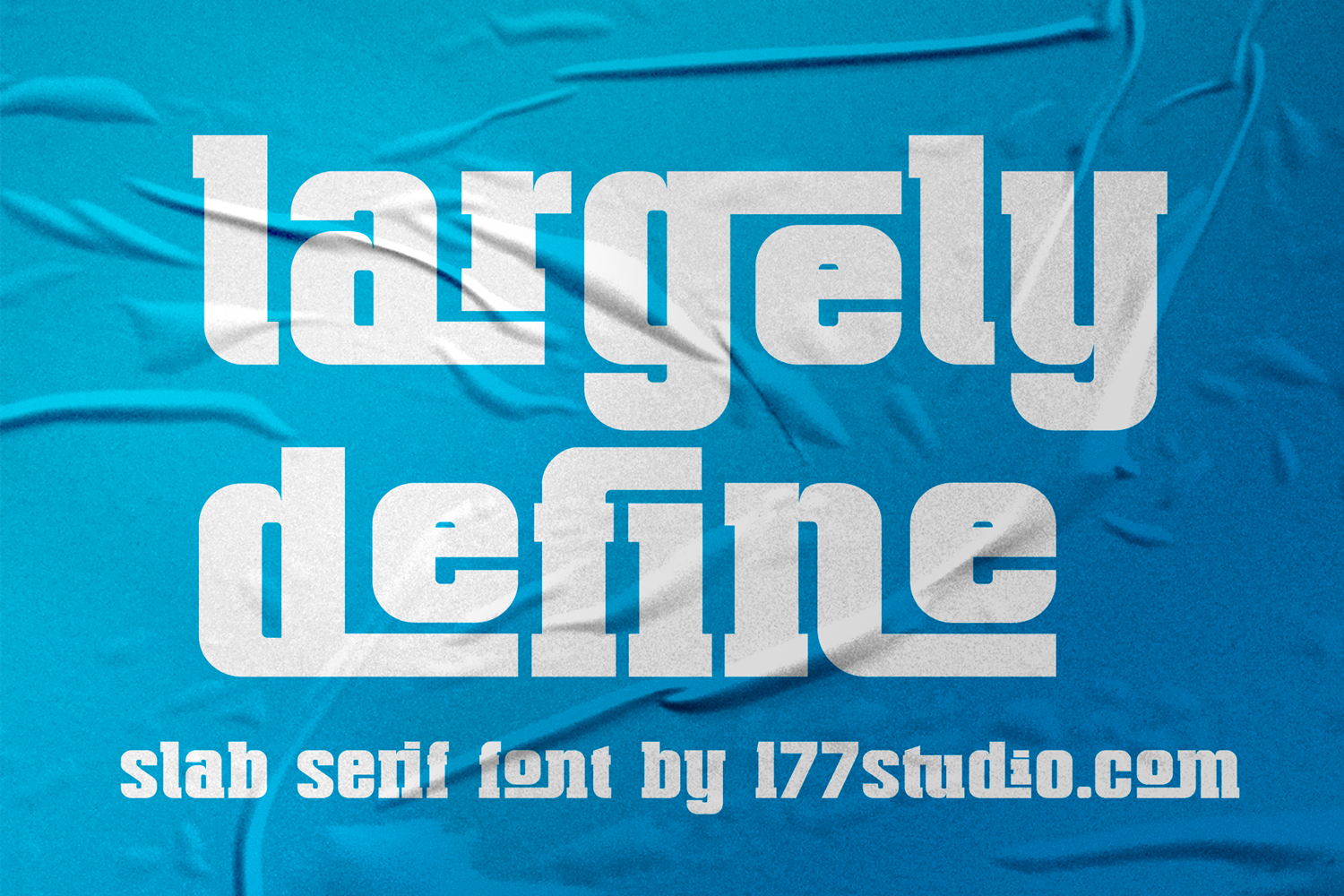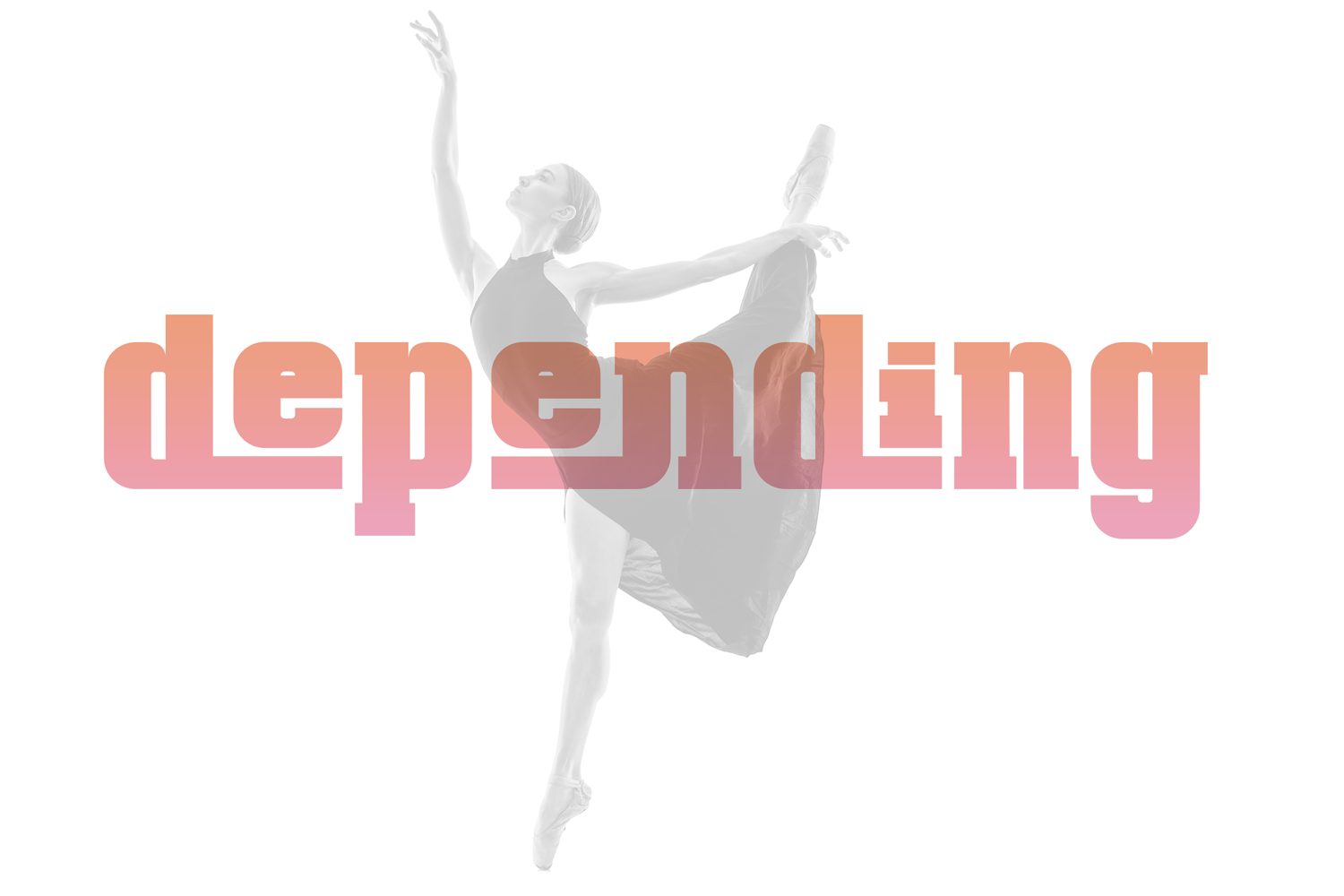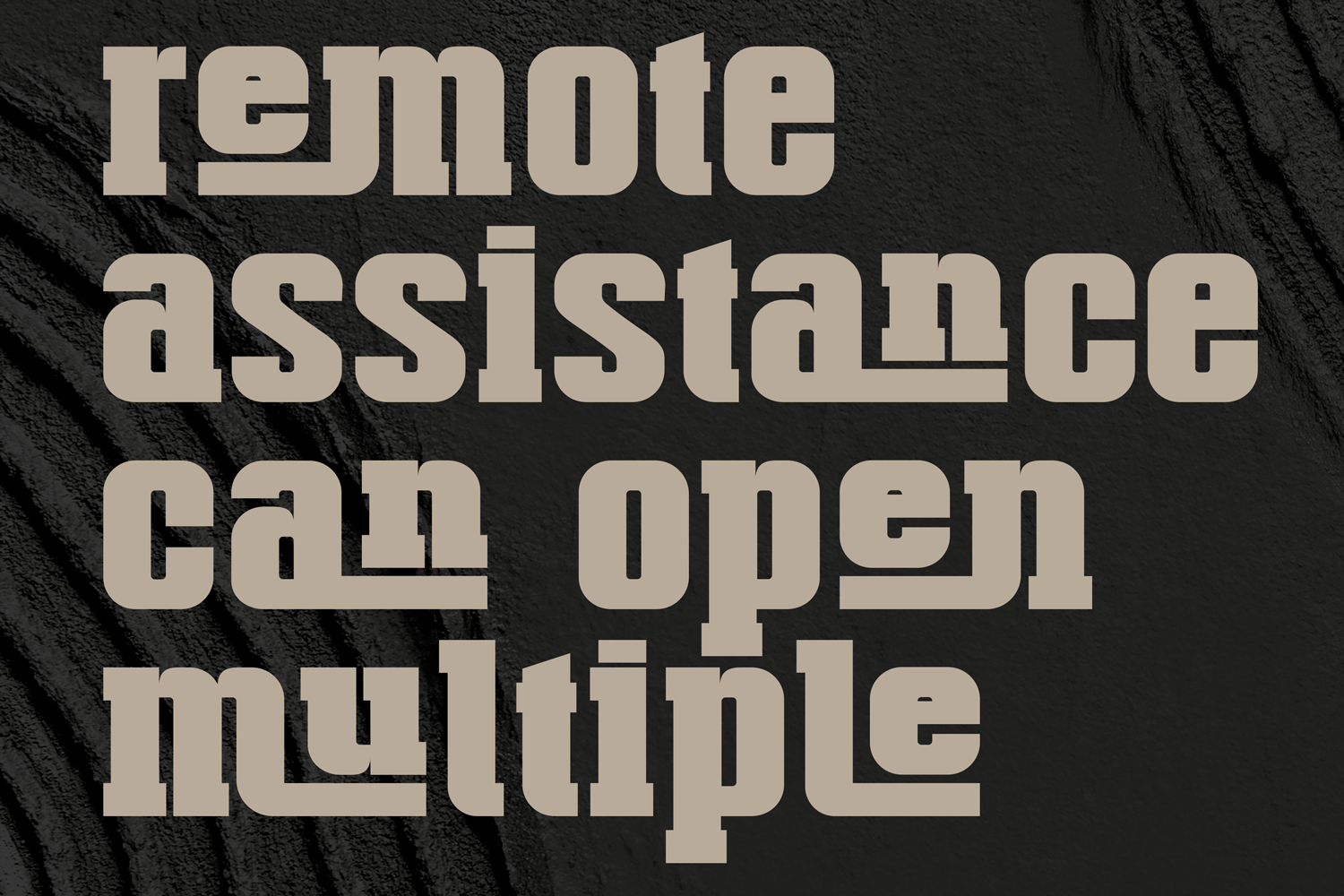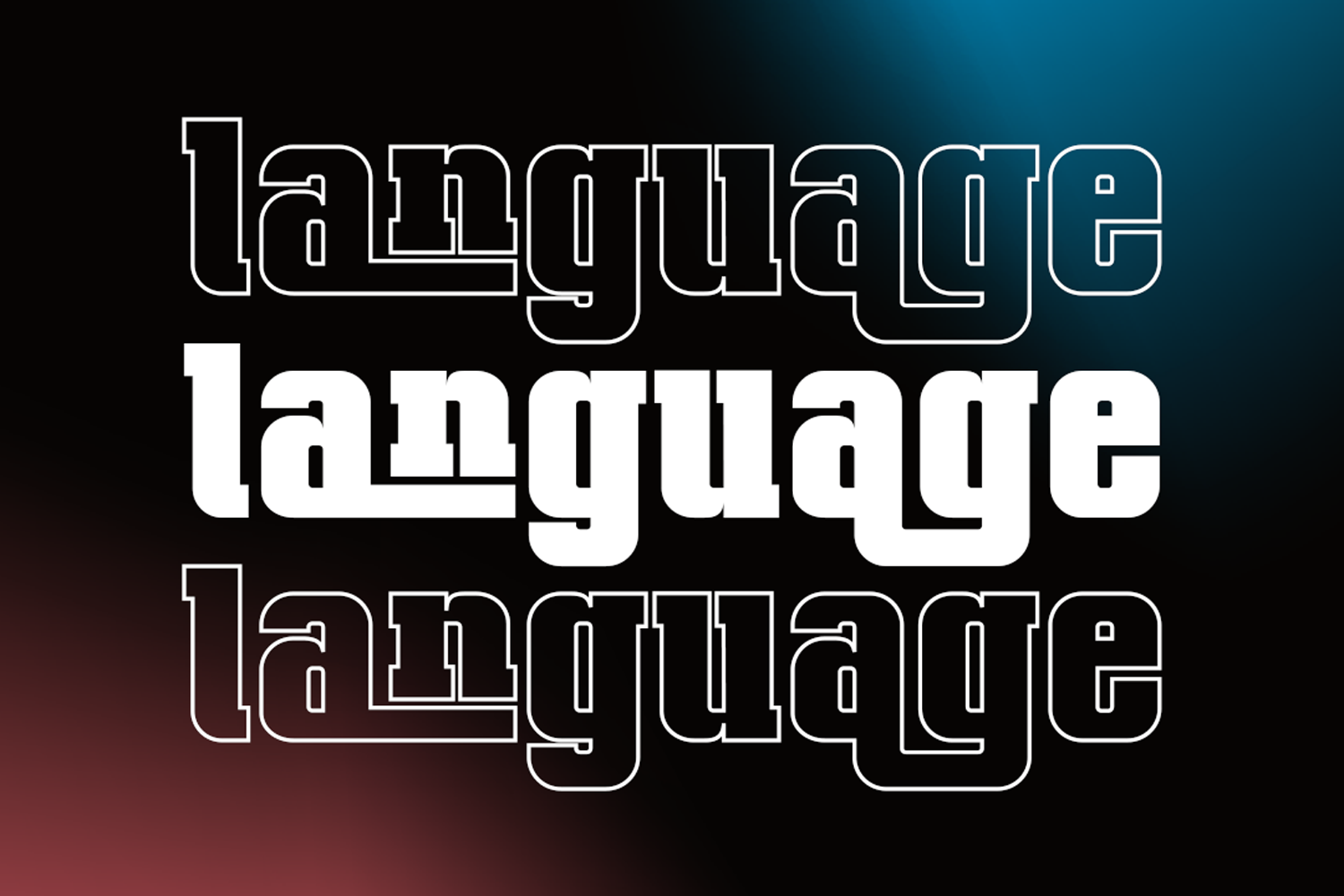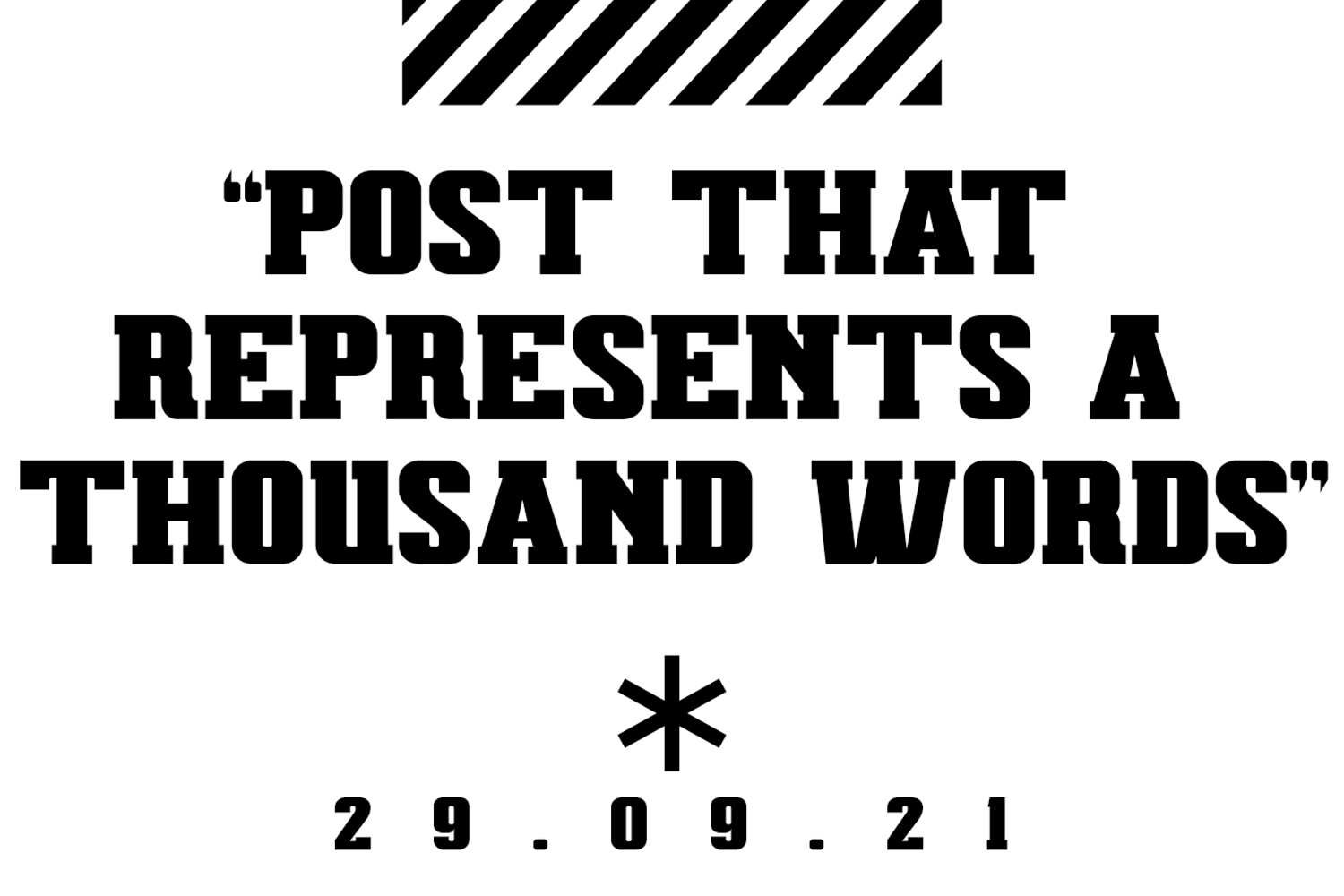
Largely Define Font
largely define font is a bold, tenacious slab serif collection. Inspired by adventure and the wild west. It’s a new version, more robust with straight edges, that give greater character and power. We hope that you will find this font useful in your projects and have fun with it! It’s perfect for your up coming projects. Such as logo branding, editorial design, stationery design, sport design, blog design, modern advertising design, card invitation, art quote, home decor, book/cover title, special events and any more.
To make it look more unique, here we prepared some ligatures:
ac ae ag ai am an ao ar au ay ch ck cm cn cu dc de dg di dm dn do dr du dy eh ek em en eu fj gc ge go hc he hg hi hm hn ho hr hu hy oh ok om on ou nc ne ni nm nn no nr nu ny mc me mi mm mn mo mr mu my lc le li lm ln lo lr lu kc ke ki km kn ko kr ku ky jb jh jk ji ib ih ik il ri ru tu uc ue ui um un uo ur uu